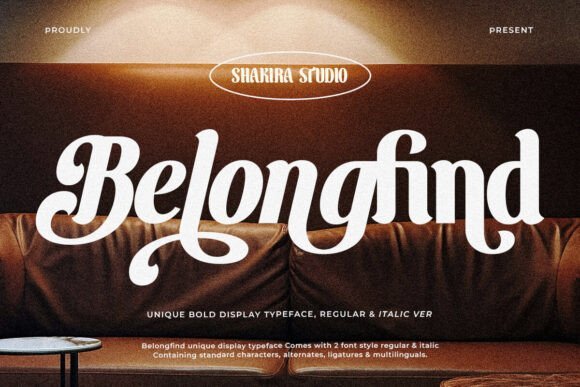
The Perfect Typography Companion for Your Next Creative Project
Have you ever been stuck in the middle of a design project, searching for the perfect font to elevate your message and make it truly unforgettable? That’s exactly where I found myself a while back. I was working on a high-end branding campaign, and I needed a font that would convey sophistication and elegance. That’s when I stumbled upon the Belong Find font – a bold and unique display serif that completely transformed my design.
Belong Find is more than just a font; it’s a tool for designers to add character and personality to their projects. With its alternates and ligatures, this font offers flexibility and versatility, making it ideal for a wide range of applications, from branding and logos to posters, magazines, and packaging. Whether you’re working on a luxury fashion campaign or a high-end editorial project, Belong Find is the perfect companion to help you make a lasting impression.
- Unique Characteristics: Belongfind Font features a unique blend of modern and vintage elements, with distinctive letterforms and subtle flourishes that add a touch of elegance and sophistication to any design.
Belongfind Font Review
Overall, I think the Belongfind font is a solid addition to any design project. It’s got a unique and modern feel that can add a touch of sophistication to your work. Here are some things that really stand out:
- ✨ Unique letterforms: The Belongfind font has some really interesting and creative letterforms that can add a lot of visual interest to your designs.
- ✨ Versatile: This font is highly versatile and can be used in a wide range of applications, from body text to headlines.
- ✨ Well-spaced: The spacing in this font is really well done, making it easy to read and understand.
However, there are a few limitations to be aware of:
- ⚠️ Limited character set: The Belongfind font has a relatively limited character set, which may make it less useful for certain types of projects.
- ⚠️ Not ideal for small text: While the font is well-spaced, it may not be the best choice for very small text, as the letterforms can become difficult to read.
Overall, I think the Belongfind font is a great choice for designers who want to add a touch of modernity and sophistication to their work. While it may have some limitations, it’s definitely worth considering for your next project.
To get the most out of the Belongfind Font, use it for headings and titles to create a clear visual hierarchy. Experiment with different font sizes and styles to create visual interest. Pair the font with other fonts to create a cohesive design.
The Belongfind Font is ideal for creating a modern and clean design. Use it for branding, marketing materials, and digital products. It’s also great for creating a professional and polished look for presentations, reports, and documents.